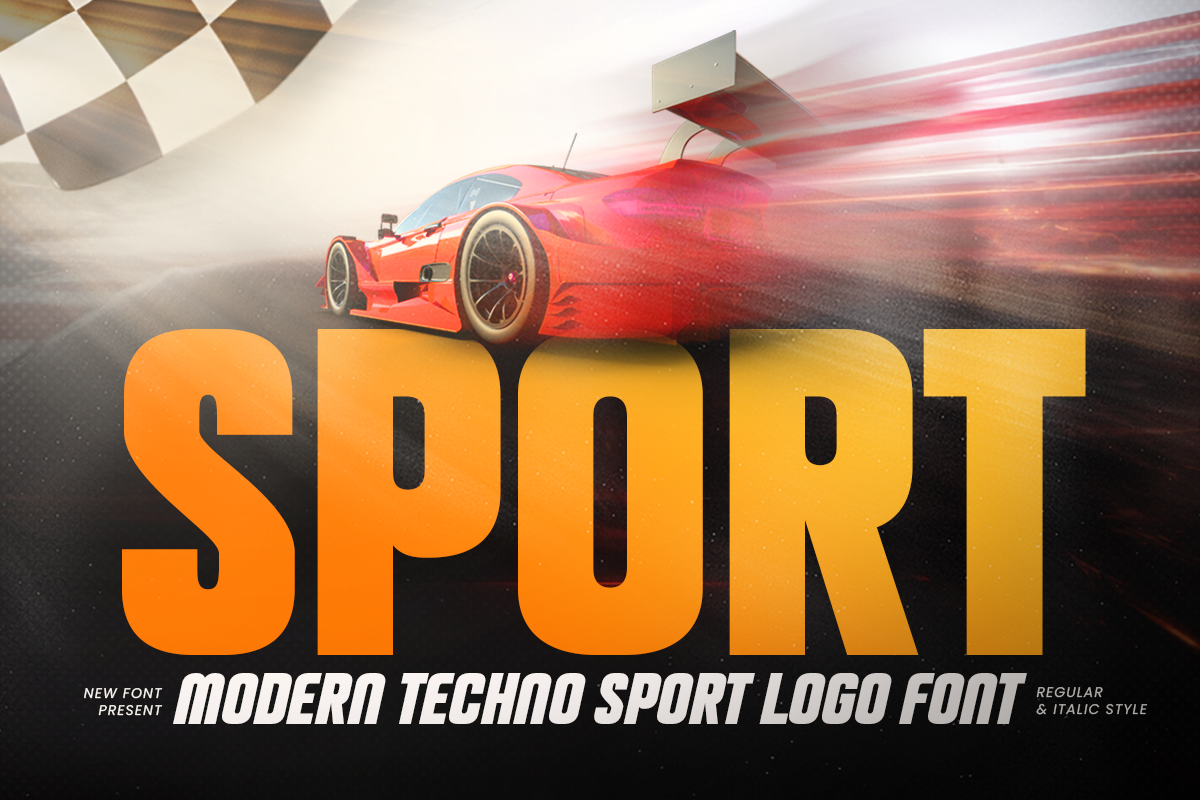
Sport
-Modern Techno Sport Logo Font
Sport – Modern Techno Sport Logo Font
Sport is a modern techno sport logo font designed with a powerful, futuristic, and energetic visual style. Combining athletic inspiration with high-tech aesthetics, Sport features bold letterforms that create a strong identity for competitive brands, teams, and digital projects.
Perfect for sports logos, esports branding, racing graphics, gaming titles, team uniforms, fitness brands, automotive designs, and athletic merchandise, Sport delivers a dynamic appearance that captures speed and performance. Its modern structure also works well for posters, headlines, signage, social media, advertising, and promotional materials.
As a modern techno sport font, Sport is ideal for designers creating bold visual identities in the sports, gaming, technology, and entertainment industries. Its sharp and confident character makes it a versatile choice for both digital and print applications, helping brands stand out with a futuristic competitive edge.
Sport – Modern Techno Sport Logo Features
• Futuristic techno letterforms with a sporty attitude
• Bold and dynamic style for competitive branding
• Ideal for sports logos, esports, gaming, and racing designs
• Perfect for team identities, apparel, and merchandise
• Great for posters, headlines, signage, and advertising
• Includes uppercase, lowercase, numerals, and punctuation
• OpenType features for creative typographic flexibility
• Suitable for digital, UI design, social media, and print projects
Features
• Alternate Characters
• Ligature Collections
• Number & Punctuation
• Opentype Features
• Uppercase & Lowercase
• Sans Serif